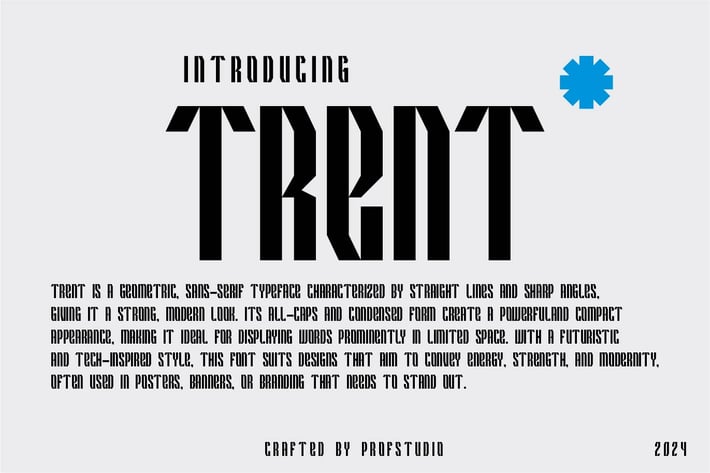
Trent - Geometric Condensed Sans Typeface
Trent - Geometric Condensed Sans Typeface . Its design is inspired by the Future Geometric. The font has a Bold, Geometric Structure, perfect for creative projects.
This font is versatile, suitable for both digital and print media. It’s easy to read, making it great for headings, magazine, poster, and logos.